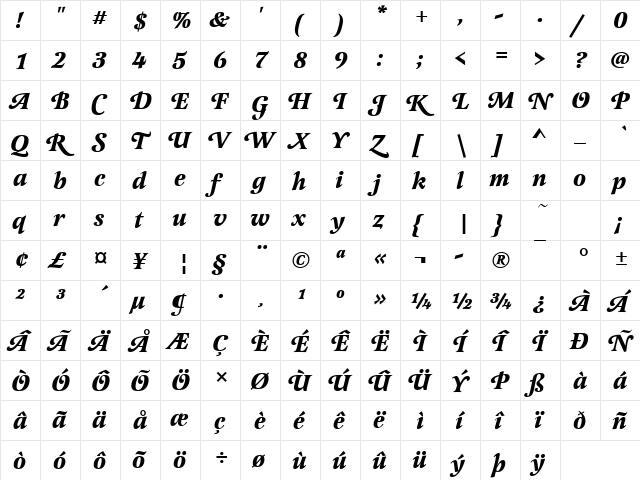
LatienneSwaT Bold Italic Font Preview
LatienneSwaT Bold Italic
LatienneSwaT Bold Italic Font Details
Design Context for LatienneSwaT Typeface
LatienneSwaT takes a measured approach to typography — its balanced proportions and neutral character make it a reliable workhorse for both digital and print work. The dynamic lean of this cut emphasises speed and emphasis in any layout. Its bold stroke weight gives it real presence on the page.